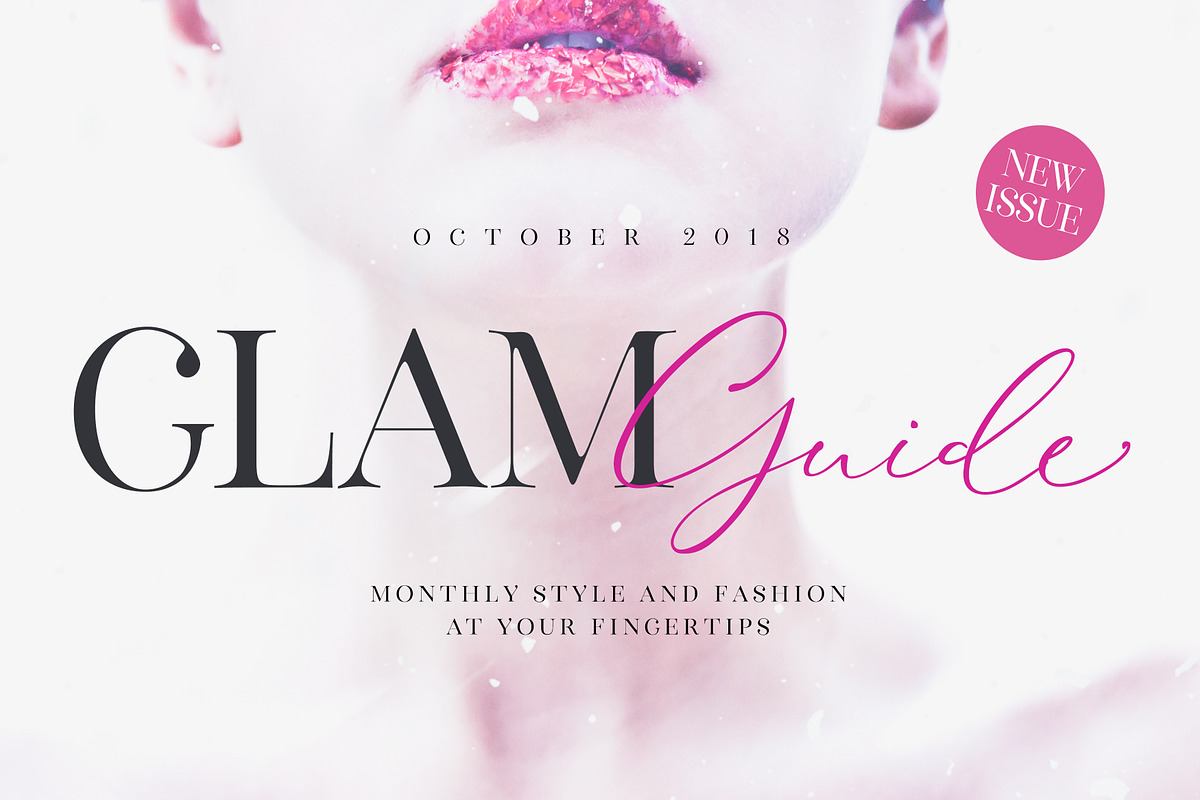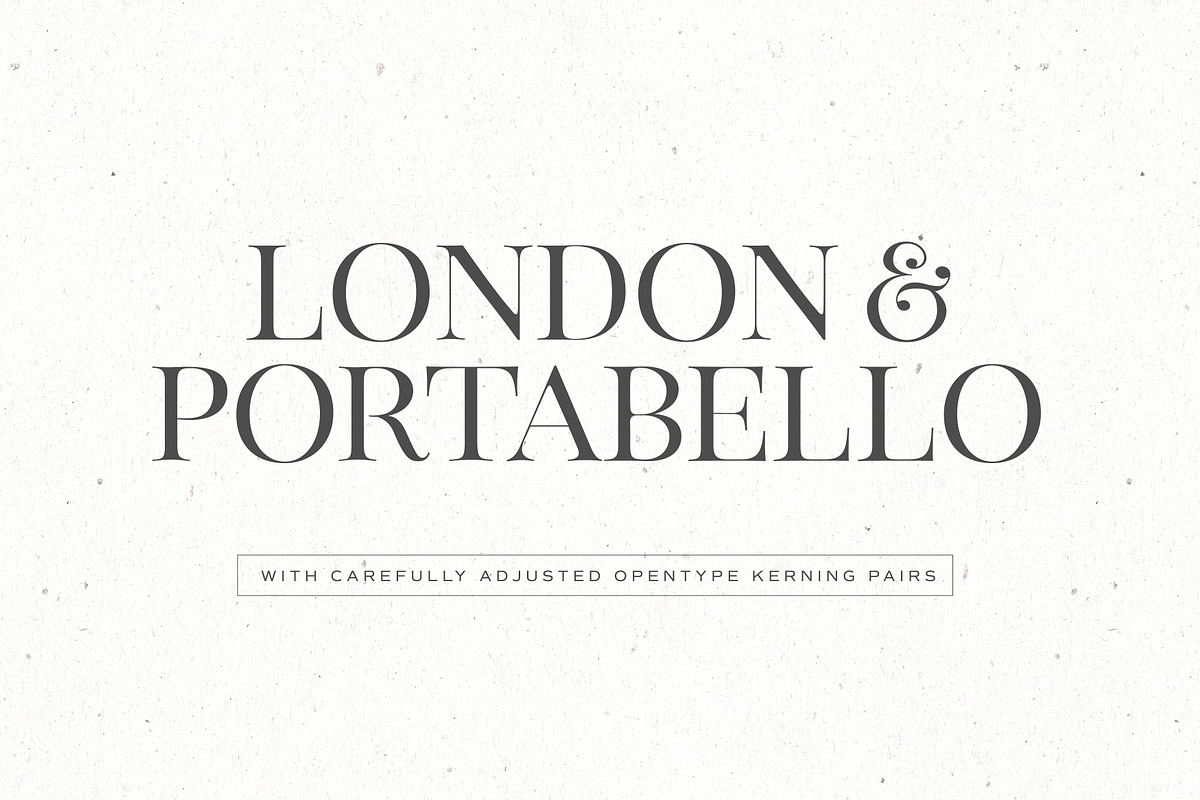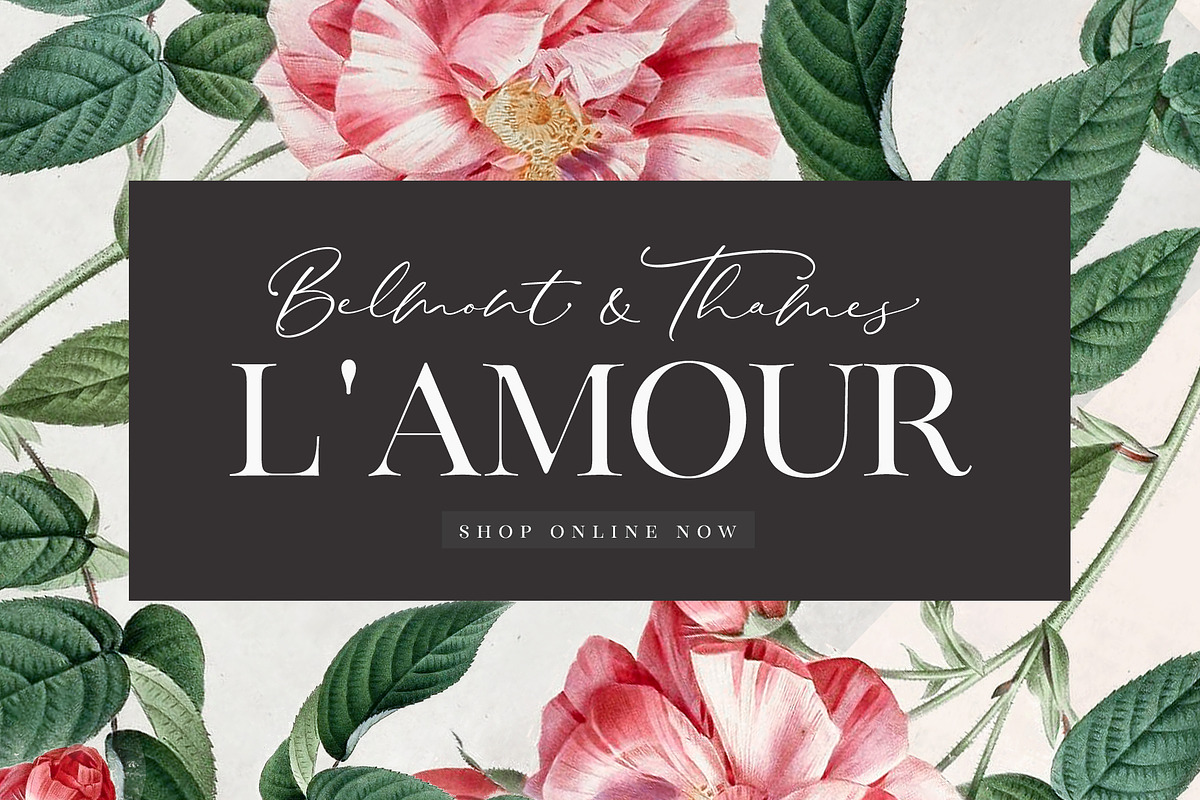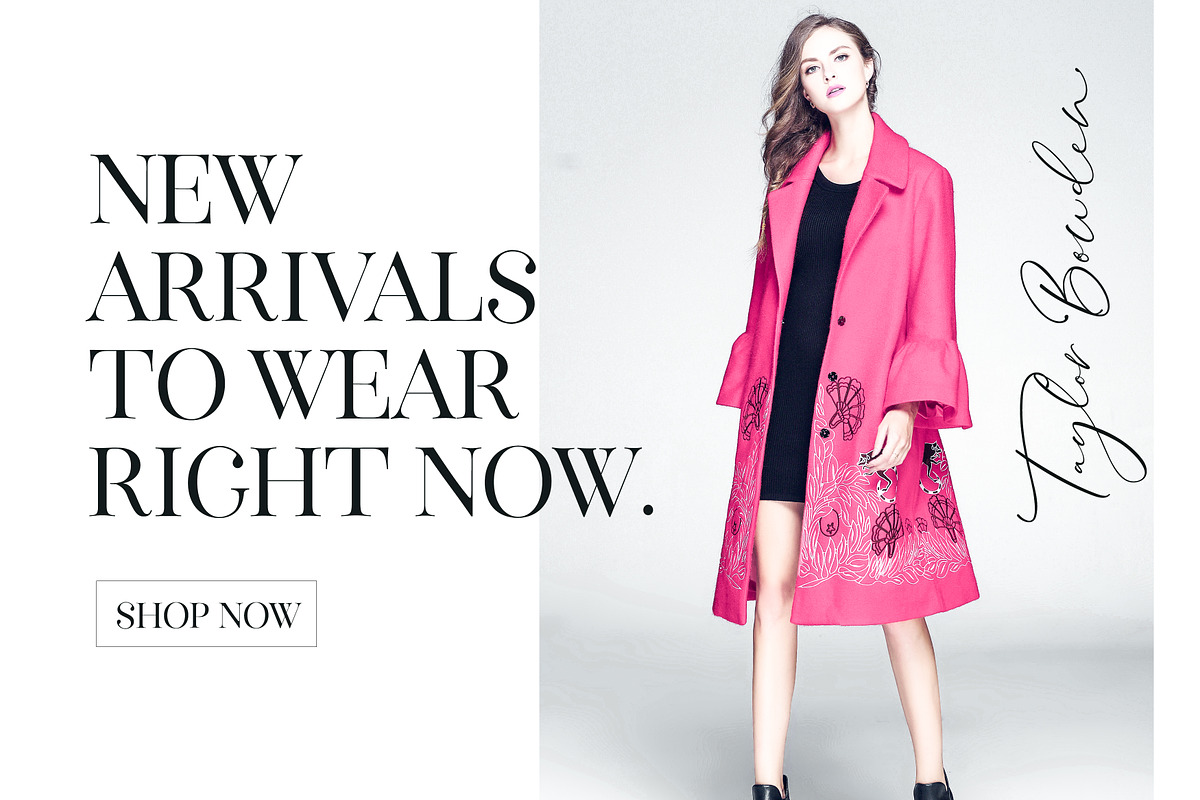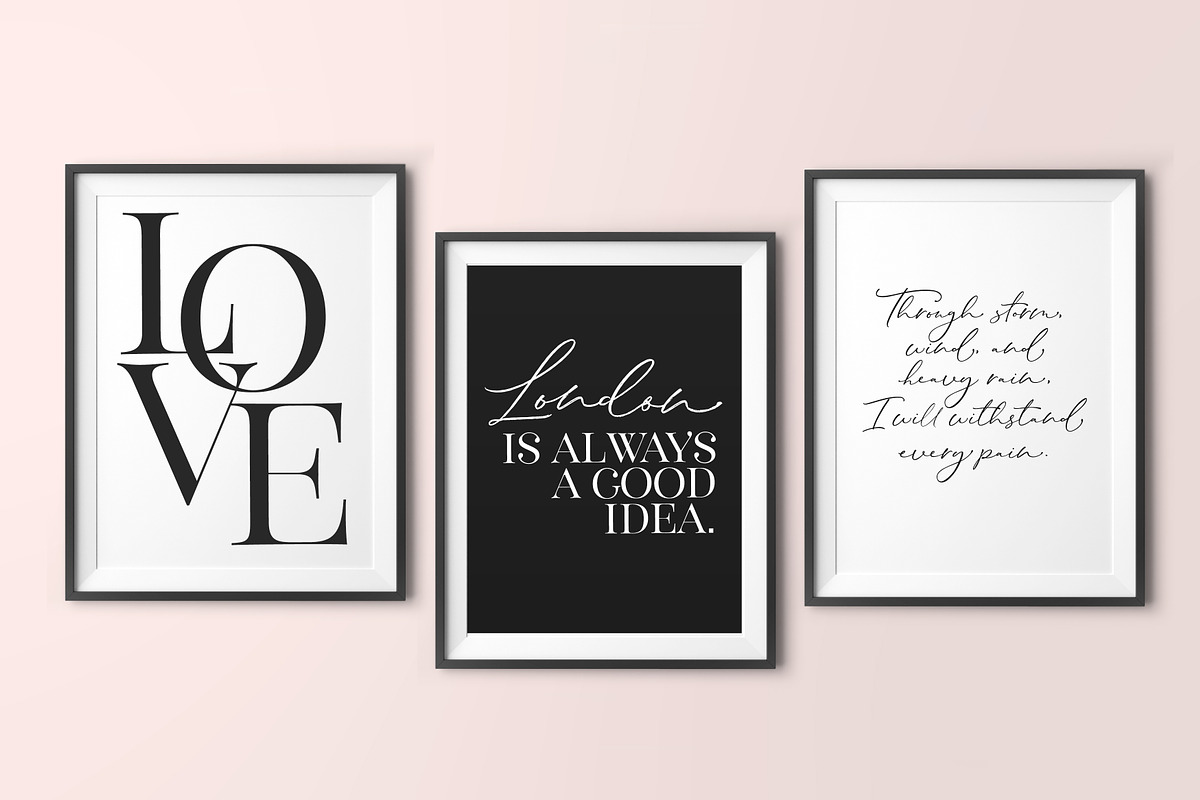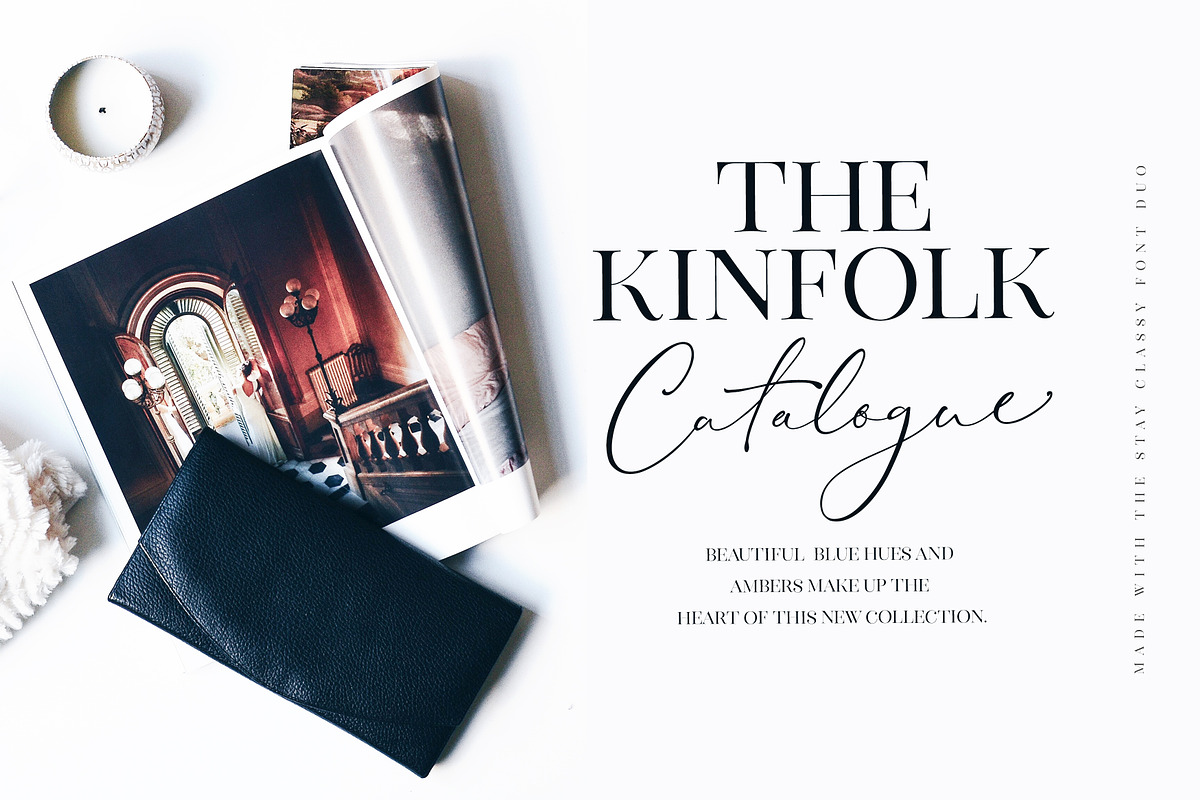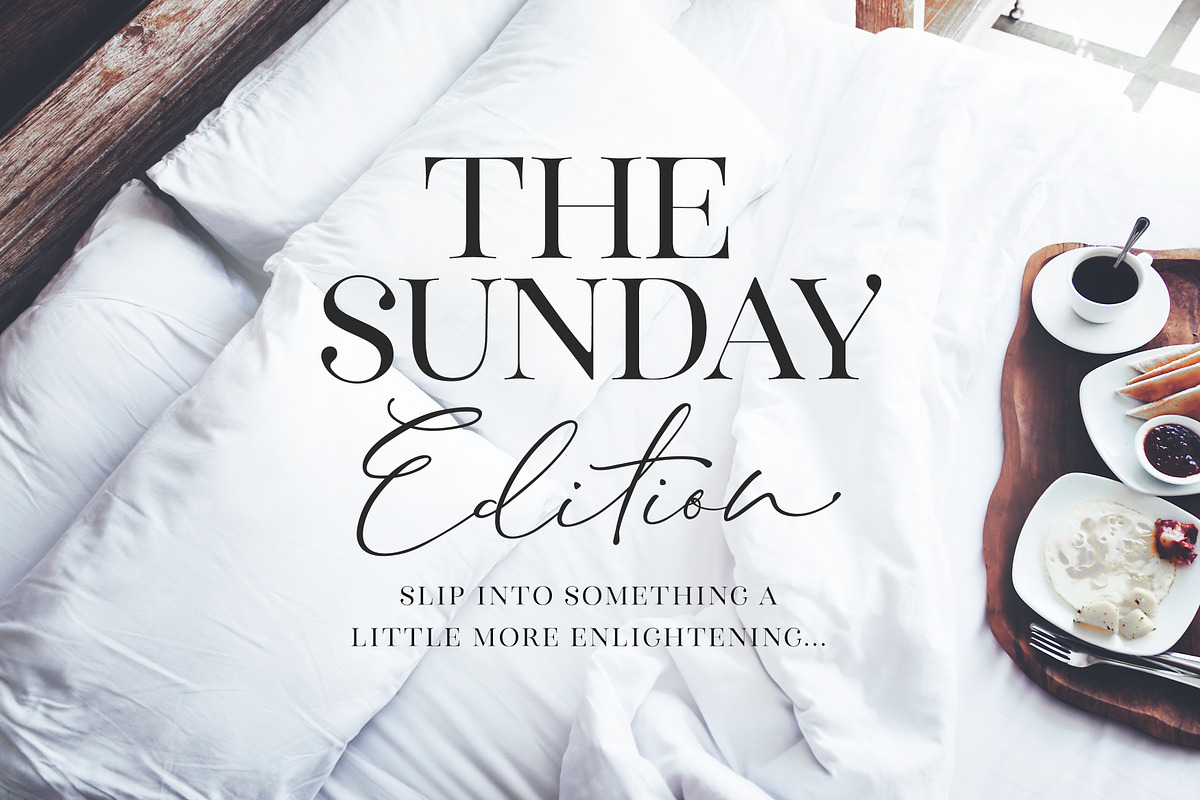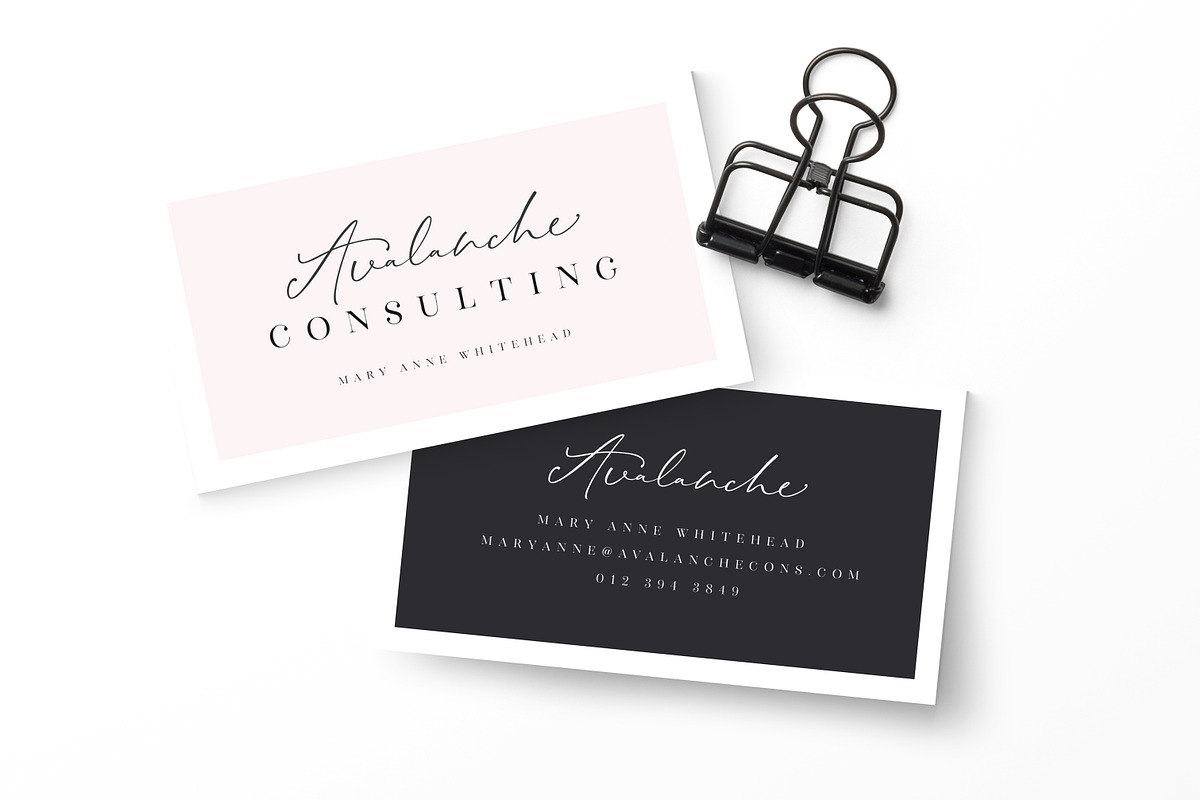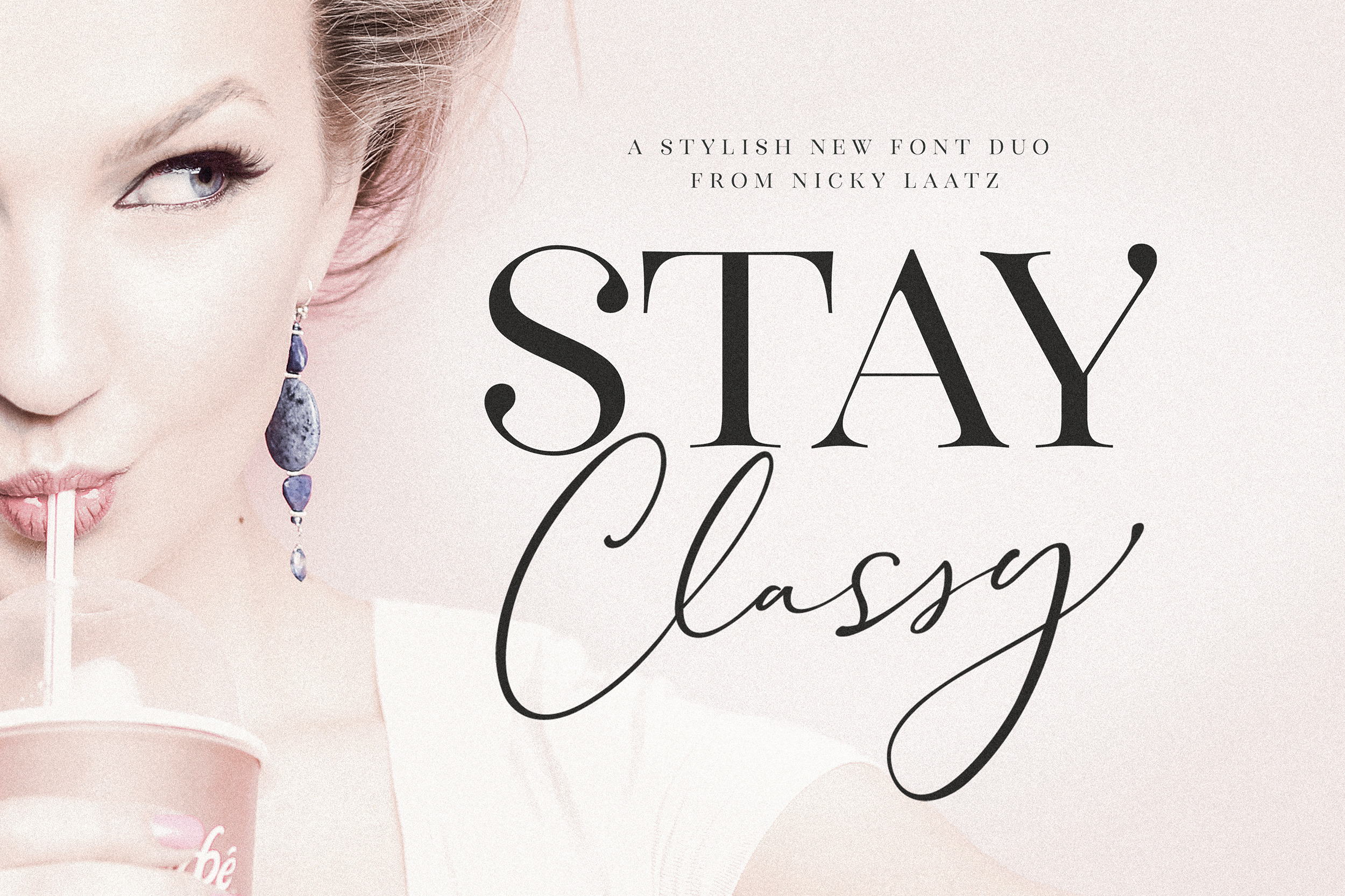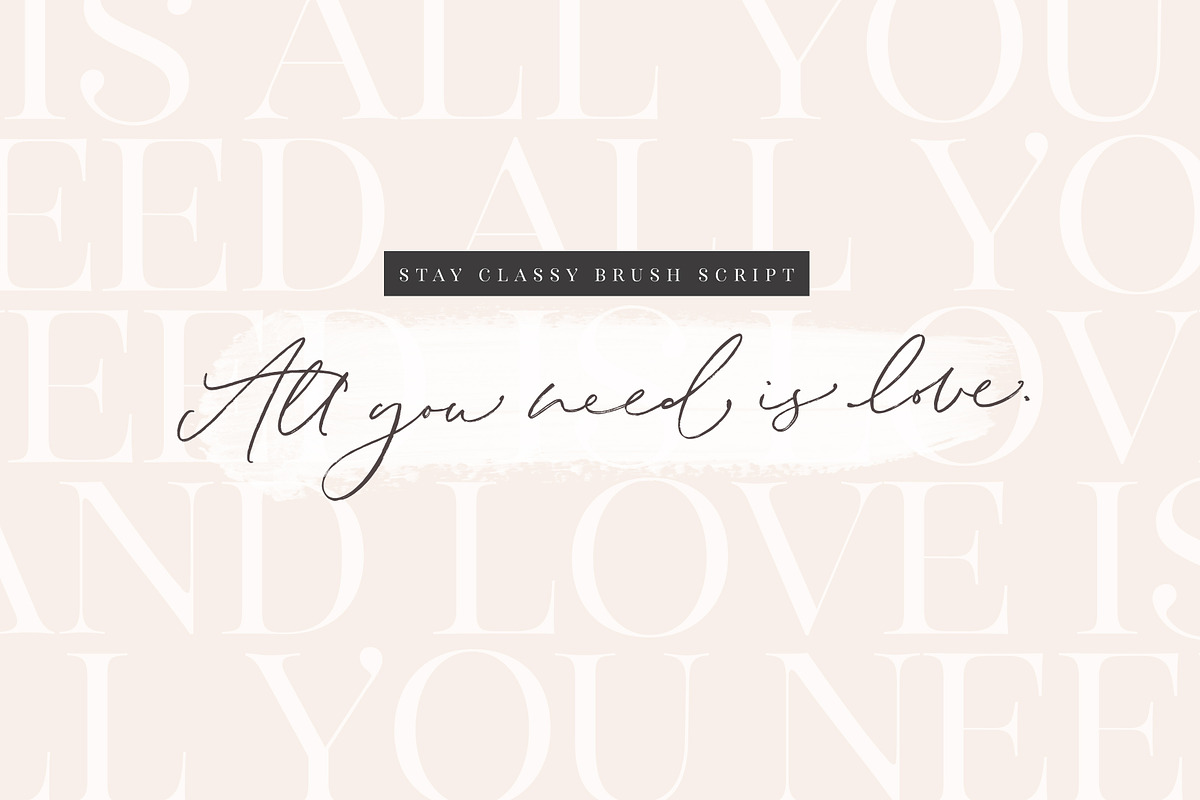
The Stay Classy Font Duo
Stay Classy! ...with the suave new Stay Classy Font Duo consisting of a sophisticated signature-style script, and an elegant, classy, all-caps serif font. With impeccably refined curves and silky smooth edges, the Stay Classy Font Duo is perfect for adding a classy, modern touch to your projects.
Perfect for branding, weddings, social media, product design, stationery and advertising - Stay Classy is versatile enough to add that elegant element to just about any project where a special touch of class is required.
THE SCRIPT : To make the script appear as natural as possible in your designs , I have included 2 sets of opentype stylistic lowercase alternates - one of which includes the elegant end letters. Words look more naturally finished off if end letters are formed with a subtle up-curve.
Last but certainly not least, a large selection of 30 carefully styled character ligatures ( letter combinations ) have also been built in ( see previews above ) .
For those after a more rustic, original look. The script also comes as an original 'brushed version' with subtle texture imperfections .
THE SERIF : The Serif includes carefully constructed built-in opentype kerning pairs to ensure impeccable letter spacing throughout the font. Typically, in any all-caps serif font, there are certain letter pairs (such as OV AW AT AY AV WO and many more ) that often look incorrectly spaced when coupled together, due to their natural dimensions. Built-in opentype kerning pairs eliminate this issue - meaning perfectly balanced letter spacing no matter what you type.
Have a scroll through the previews to see some of what you can do with this elegant font duo - the possibiilities are truly endless. Feel free to share your own creations as inspiration!
- Stay Classy Font Duo supports the . following languages: English, Finnish, French, German, Italian,Norwegian, Portuguese, Spanish, Swedish, Swiss German.